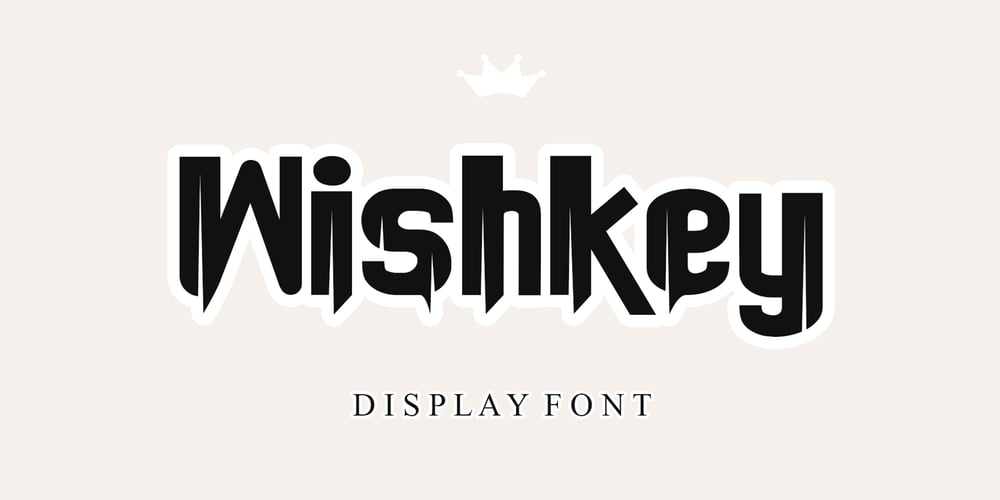
Wishkey Font Family was designed by Ahmad Afandi and published by Letterafandi Studio. Wishkey contains 4 styles and family package options. Wishkey is a cool and interestingly designed display font. It will elevate a wide range of crafting ideas from cards to branding, labels, and much more.